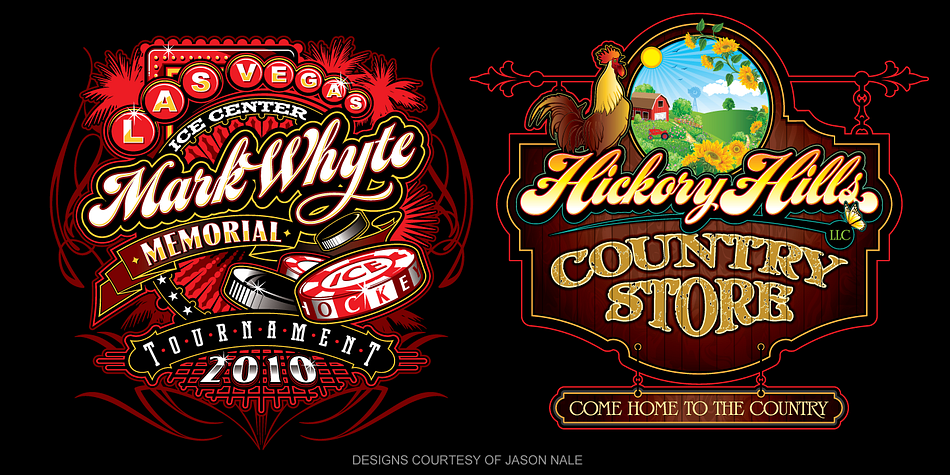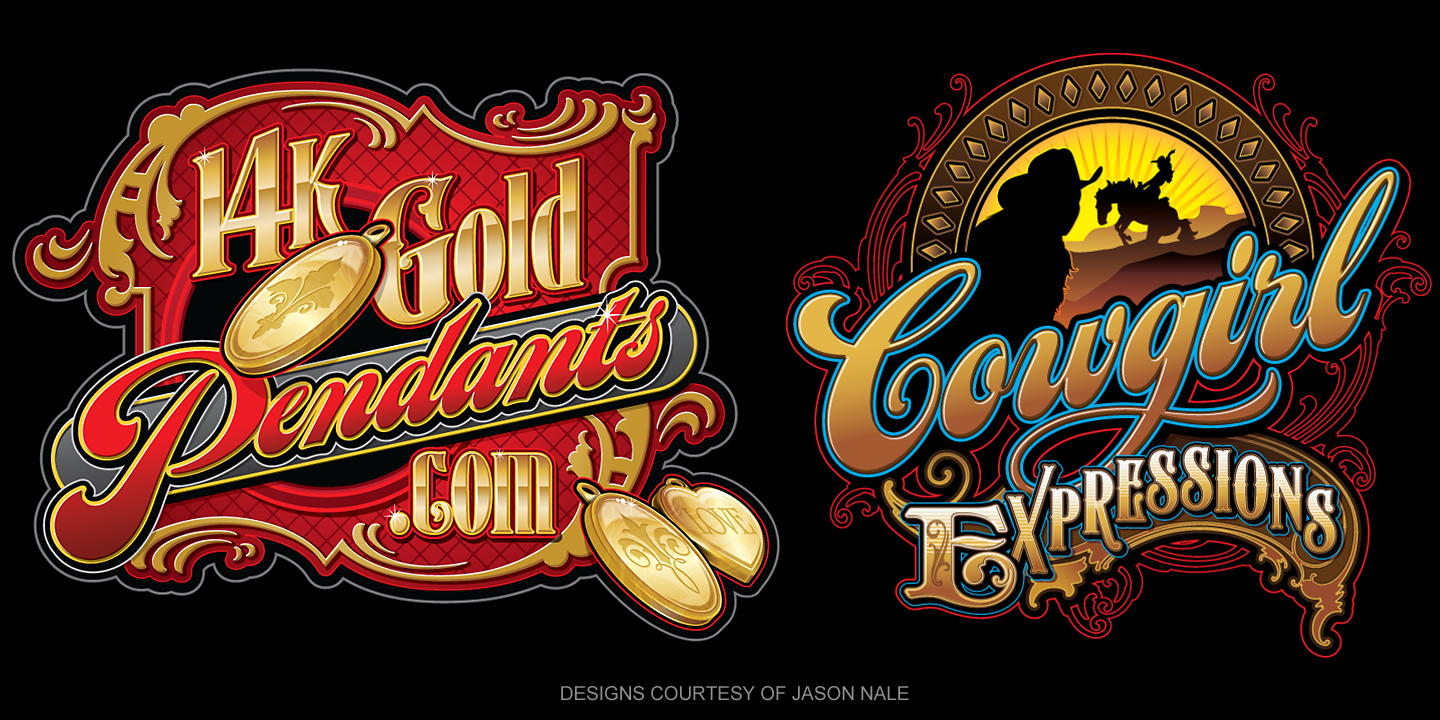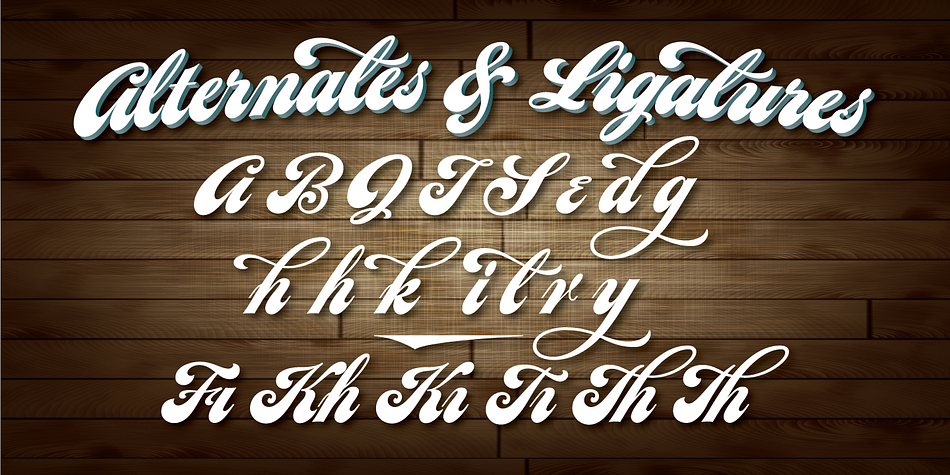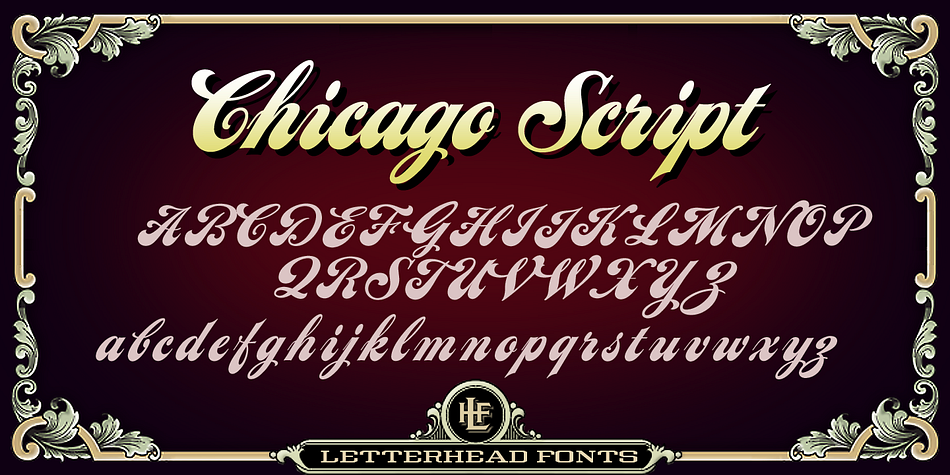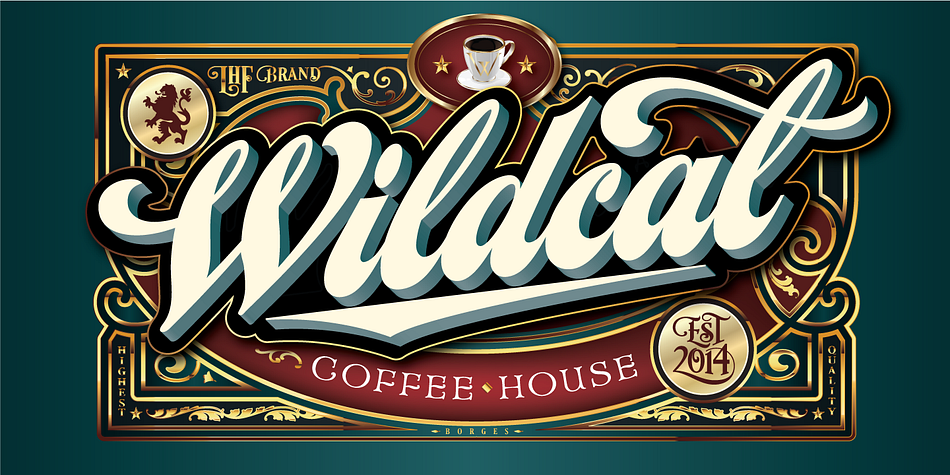
Designed by Charles Borges de Oliveira, LHF Chicago Script is a brush script font published by Letterhead Fonts.
This Charles Borges’ script takes full advantage of the Open Type format with several automatic ligatures that occur as you type for a nicer fit. Plus, the manual stylistic alternates allow you to choose the letters you prefer.